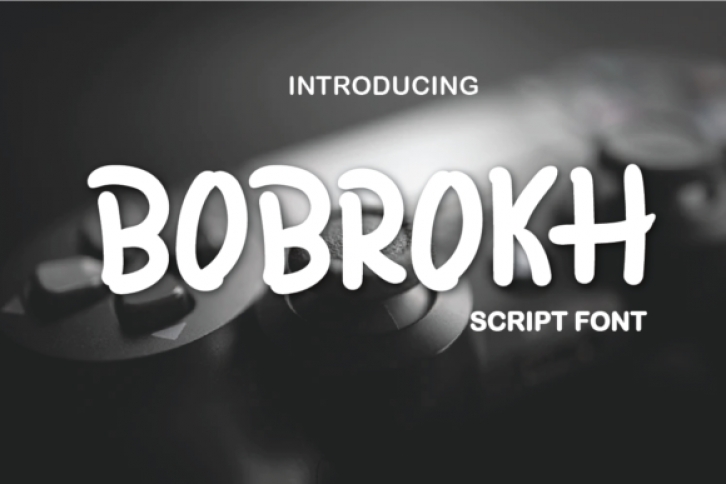
Bobrokh is a bouncy and quirky display font. It will add a fresh and contemporary touch to your designs. Add this unique display font to each of your creative ideas and notice how it makes them stand out!